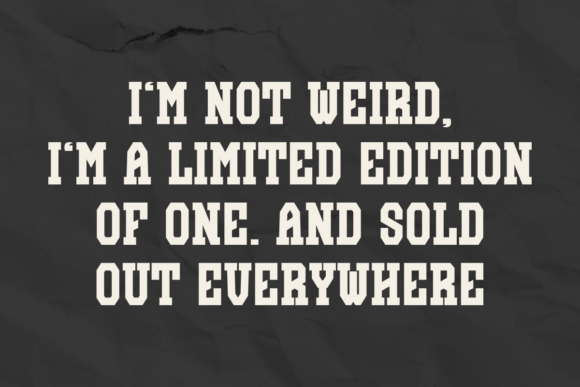
Funky Modern Font: Elevate Your Designs with a Bold and Retro Slab Serif
In the world of typography, fonts play a crucial role in conveying the tone and personality of a design. When it comes to creating visually appealing and attention-grabbing content, selecting the right font is essential. If you’re looking for a font that can add a touch of nostalgia and whimsy to your designs, look no further than Funky Modern, a bold and retro slab serif font.
What is Funky Modern Font?
Funky Modern is a bold and retro slab serif font that brings a vintage vibe to your designs. Its unique blend of classic and modern elements makes it perfect for a wide range of applications, from quotes and posters to apparel mockups and more. With its sturdy and confident appearance, Funky Modern is sure to make a statement in any design.
Perfect for Quotes, Posters, and Apparel Mockups
Funky Modern’s versatility makes it an excellent choice for various design projects. Here are some ideas to get you started:
- Quotes: Add a touch of personality to your inspirational quotes with Funky Modern’s bold and playful font.
- Posters: Create eye-catching posters for events, promotions, or announcements with Funky Modern’s retro charm.
- Apparel Mockups: Give your t-shirt, hoodie, or hat designs a funky twist with this modern slab serif font.
Suitable for Various Topics and Occasions
Funky Modern’s adaptability extends to various topics and occasions, making it a valuable addition to your font library. Here are some examples:
Typography Tips for Using Funky Modern Font
To get the most out of Funky Modern, here are some typography tips to keep in mind:
- Pair with contrasting fonts: Combine Funky Modern with a clean and simple font to create visual interest and hierarchy.
- Experiment with colors: Try out different color schemes to find the perfect match for your design and Funky Modern’s bold font.
- Play with sizes: Use Funky Modern in various sizes to create emphasis and add visual flow to your design.
Funky Modern is a bold and retro slab serif font that can elevate your designs with its unique blend of classic and modern elements. With its versatility and adaptability, Funky Modern is perfect for a wide range of applications, from quotes and posters to apparel mockups and more. Whether you’re designing for Christmas, Trump, Thanksgiving, or any other topic or occasion, Funky Modern is sure to add a touch of nostalgia and whimsy to your projects.